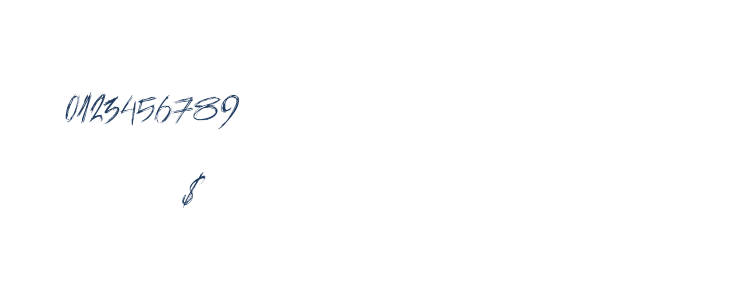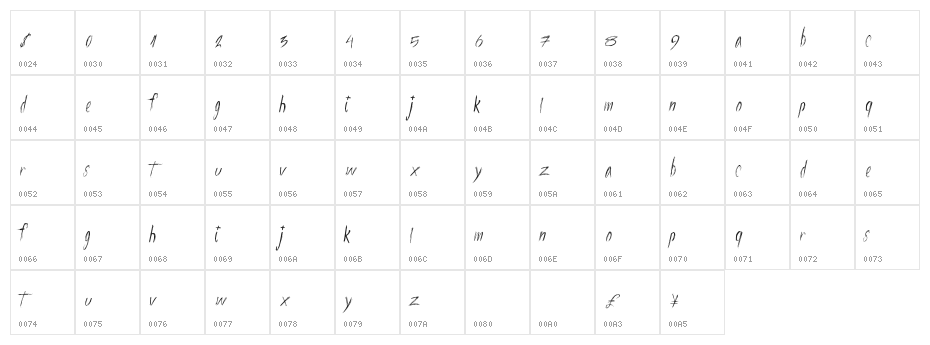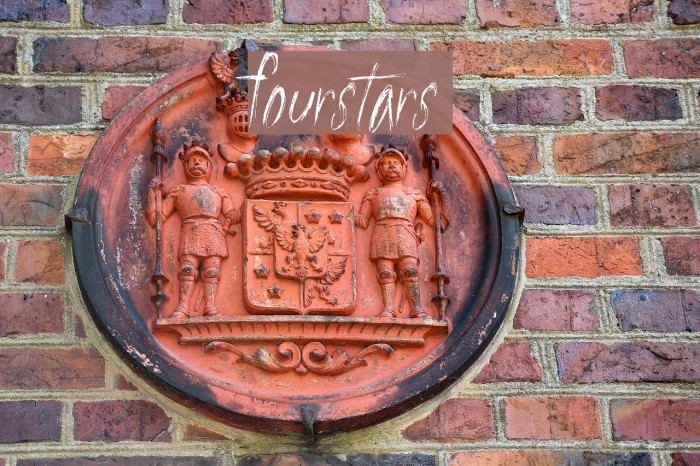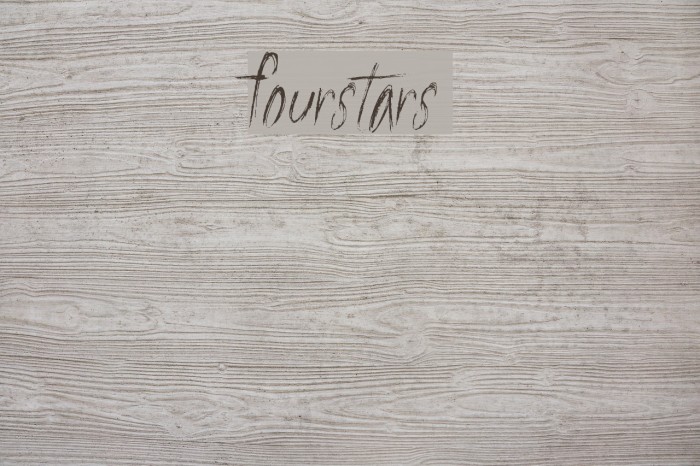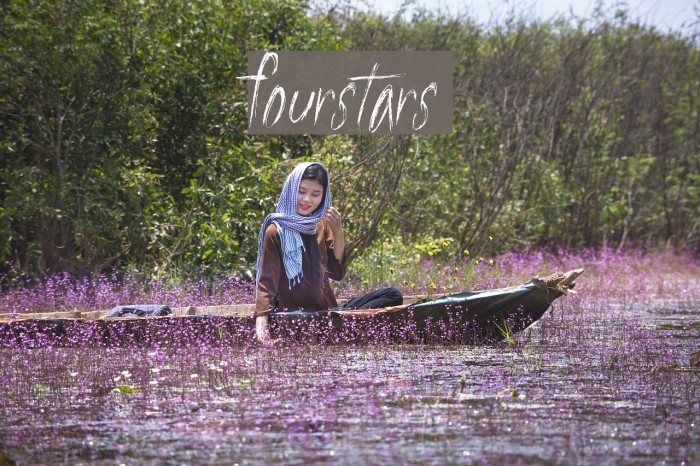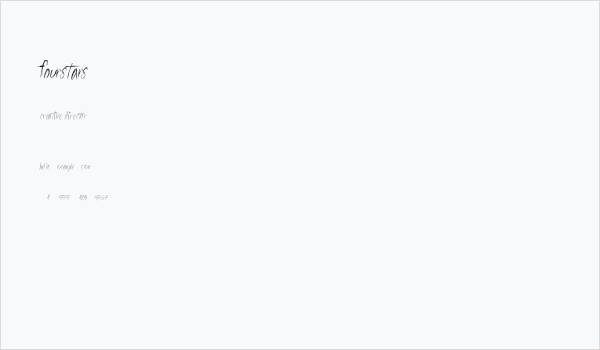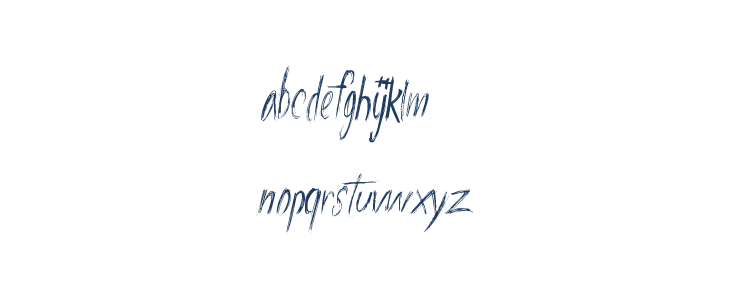
FourStars Font
FourStars Description
This font features a dynamic and expressive style with a handwritten appearance. The strokes are uneven, giving it a textured and artistic look. The characters are slightly slanted, adding to the casual and informal feel. The uppercase and lowercase letters maintain a consistent flow, while the numbers and special characters complement the overall design. The font's unique brush-like texture makes it stand out, ideal for creative projects that require a personal touch.
| Use Case | Logos, Headlines, Artistic projects |
| Proposed Projects | Ideal for greeting cards, artistic posters, branding materials, and social media graphics. |